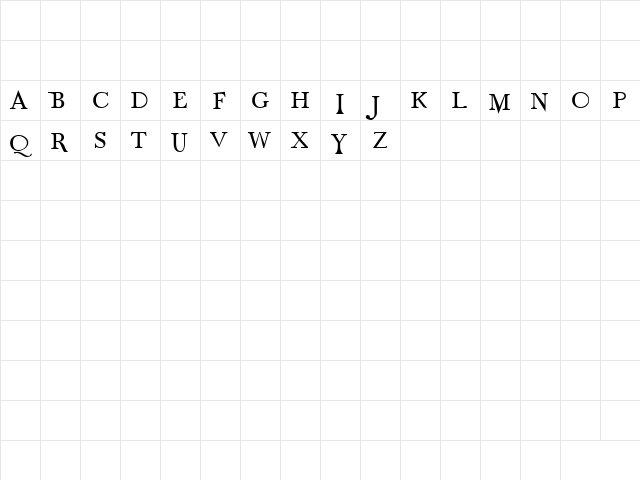
Old Dog, New Tricks Caps
Design Context for Old Dog, New Tricks Typeface
Old Dog, New Tricks takes a measured approach to typography — its balanced proportions and neutral character make it a reliable workhorse for both digital and print work.